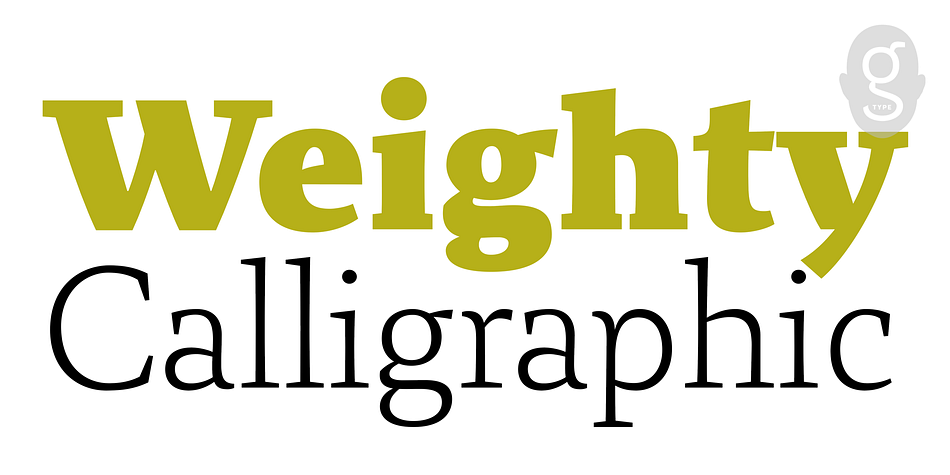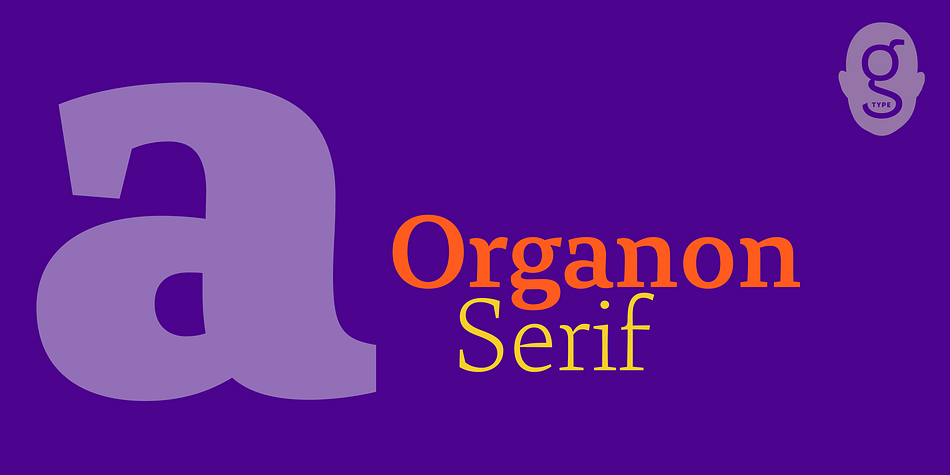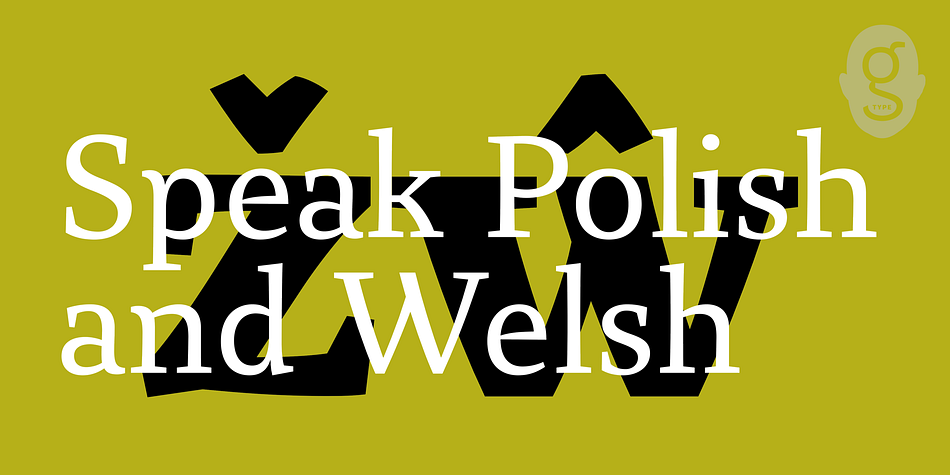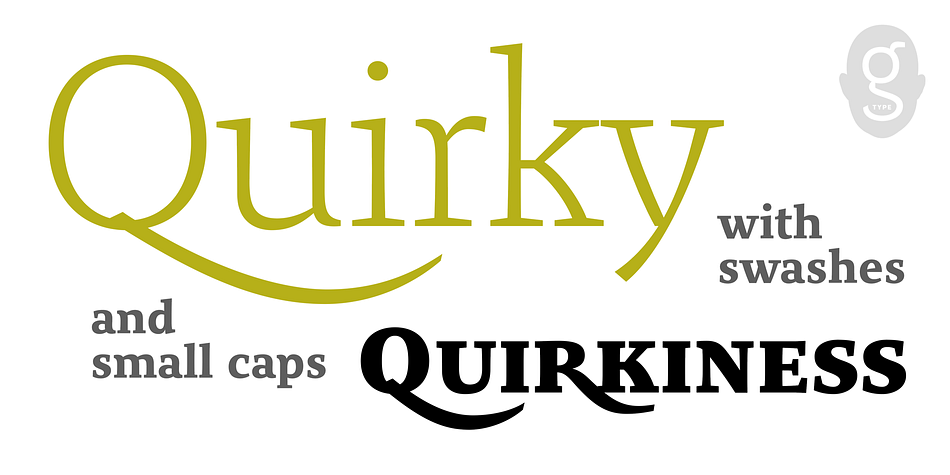
Designed by Nick Cooke, Organon Serif is a serif and slab serif font family. This typeface has six styles and was published by G-Type.
The six weight Organon Serif typeface is a stylish and feature-laden OpenType family which complements its sister Organon Sans.
Both Organon families work in tandem to create an elegant, legible and thoughtfully designed suite of fonts which share similar cap & x heights, stem widths and ascender/descender values.
Organon Serif mixes slab and calligraphic traits to create a truly impressive modern serif face fully loaded with typographic options and professional OpenType features for advanced typesetting.